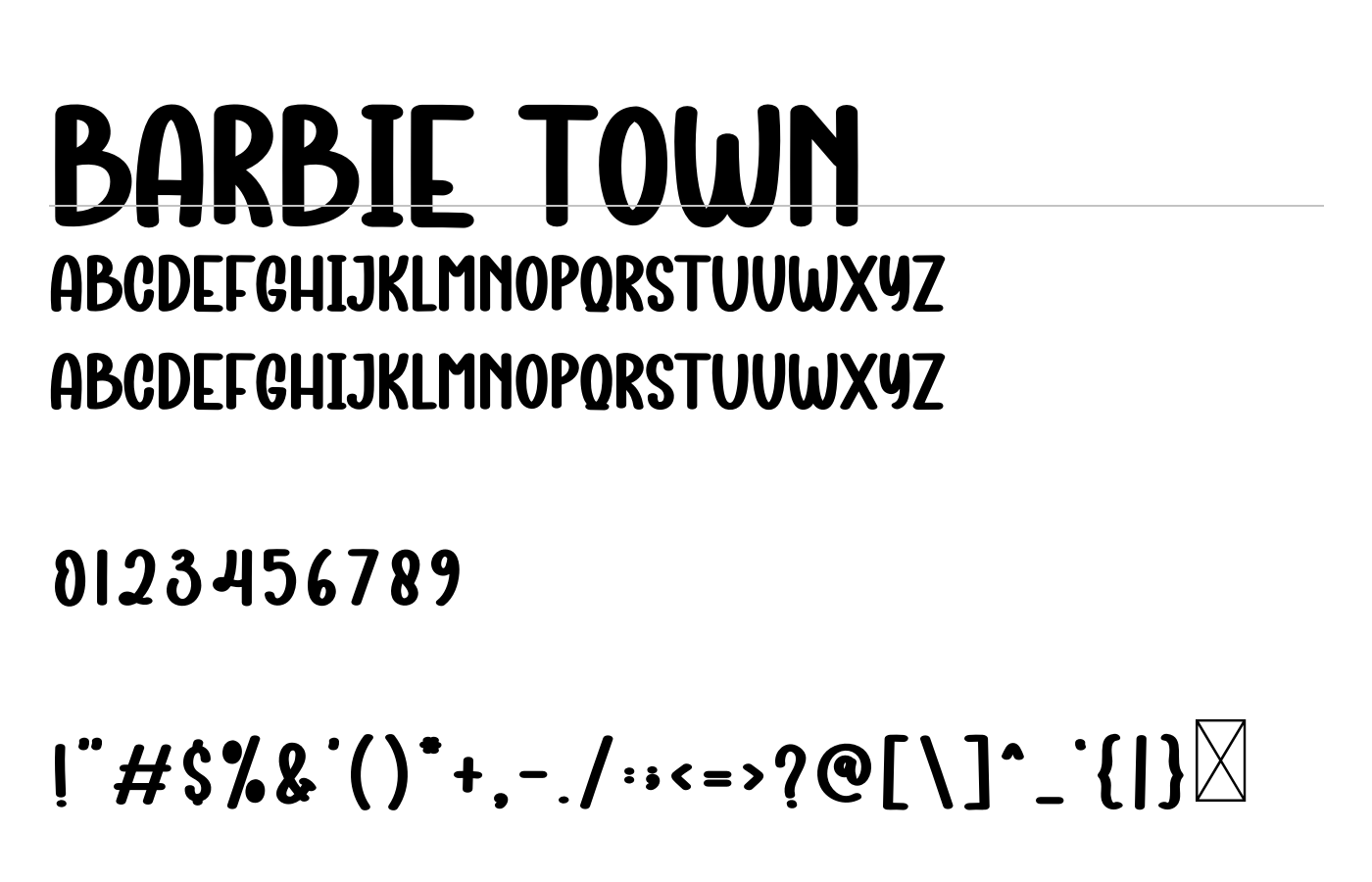
Barbie Town Font is a playful and rounded sans-serif typeface featuring a bold weight and high x-height, making it highly legible and friendly in appearance. Its quirky letterforms with soft edges and subtle variations bring a casual, fun vibe ideal for children's products, informal branding, and lighthearted designs. This font works best for headlines, logos, and packaging where a charming, approachable personality is desired.
Barbie Town Font
About Barbie Town Font